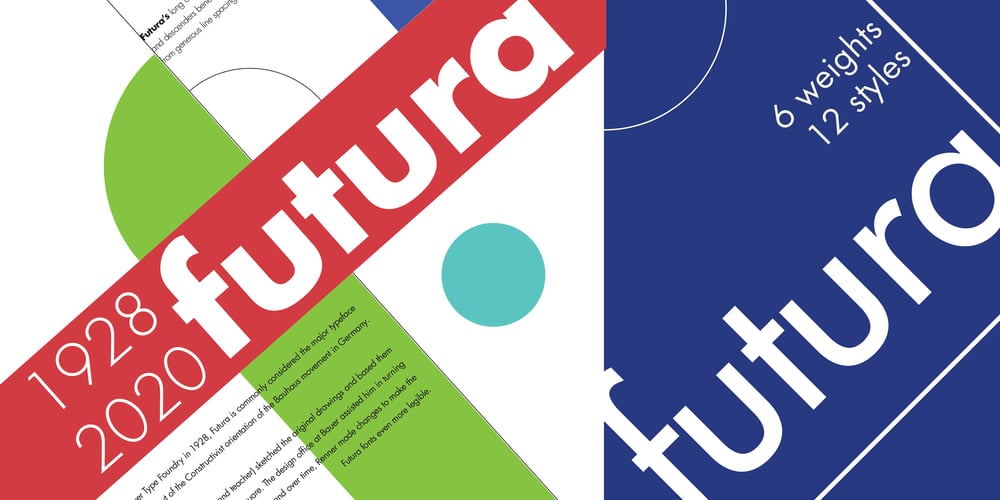
Futura Font Family was designed by Paul Renner and published by Linotype. Futura contains 22 styles and family package options. First presented by the Bauer Type Foundry in 1928, Futura is commonly considered the major typeface development to come out of the Constructivist orientation of the Bauhaus movement in Germany. Paul Renner (type designer, painter, author and teacher) sketched the original drawings and based them loosely on the simple forms of circle, triangle and square. The design office at Bauer assisted him in turning these geometric forms into a sturdy, functioning type family, and over time, Renner made changes to make the Futura fonts even more legible. Futura’s long ascenders and descenders benefit from generous line spacing. The range of weights and styles make it a versatile family. Futura is timelessly modern; in 1928 it was striking, tasteful, radical — and today it continues to be a popular typographic choice to express strength, elegance, and conceptual clarity. NEW: the new Futura W1G versions features a Pan-European character set for international communications. The W1G character set supports almost all the popular languages/writing systems in western, eastern, and central Europe based on the Latin alphabet including Vietnamese, and also several based on Cyrillic and Greek alphabets Futura® font field guide including best practices, font pairings and alternatives.